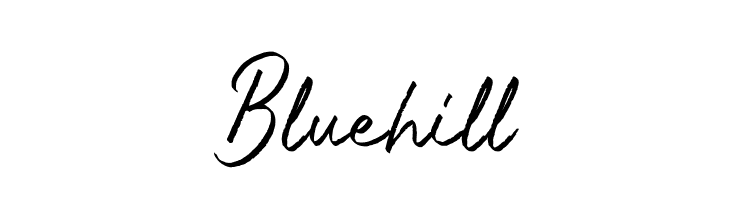
A dynamic and elegant script font with fluid, connected letterforms.
A flowing, cursive script font with elegant, interconnected characters.
A dynamic and lively script font with flowing, interconnected letterforms.
A bold, handwritten font with fluid strokes and a casual, energetic style.
A cursive, calligraphy-inspired font with elegant loops and swashes.
An elegant, flowing script font with smooth, cursive strokes and graceful curves.
Elegant script font with decorative flourishes.
A dynamic and flowing script font with elegant, slightly slanted letterforms.
A dynamic, cursive script font with high contrast and elegant flow.